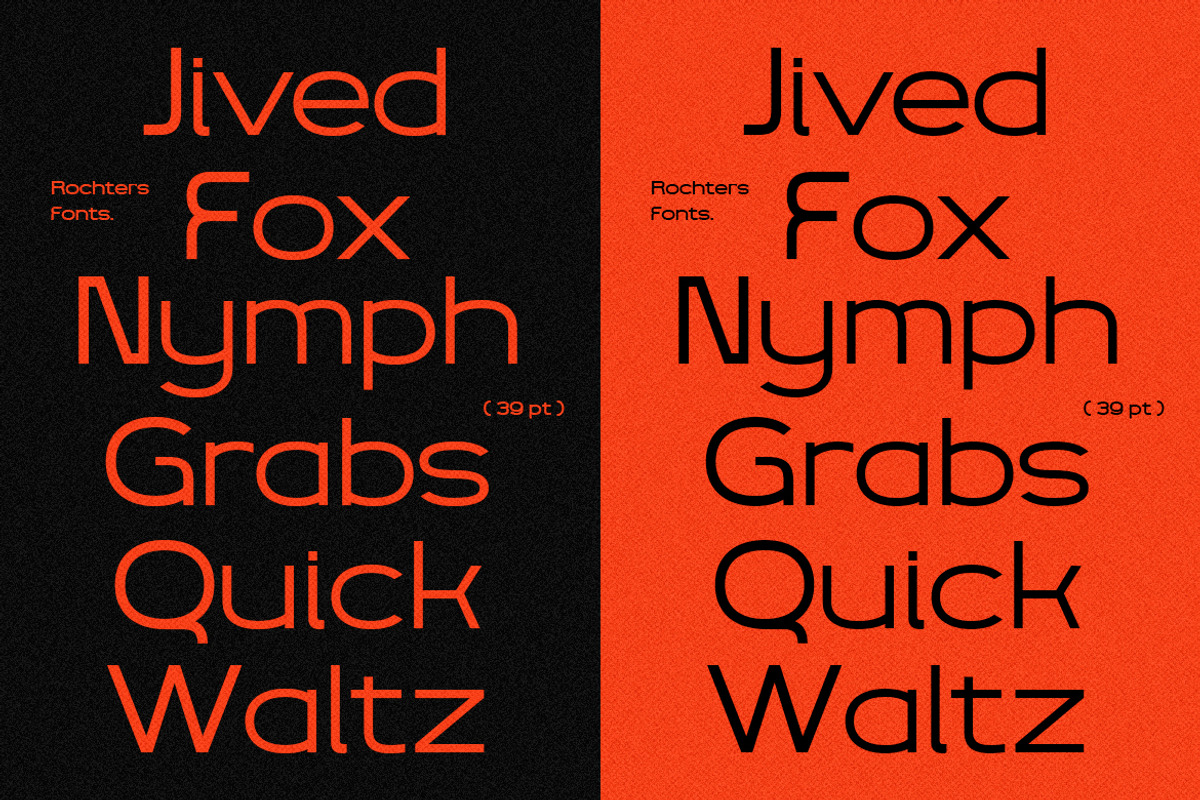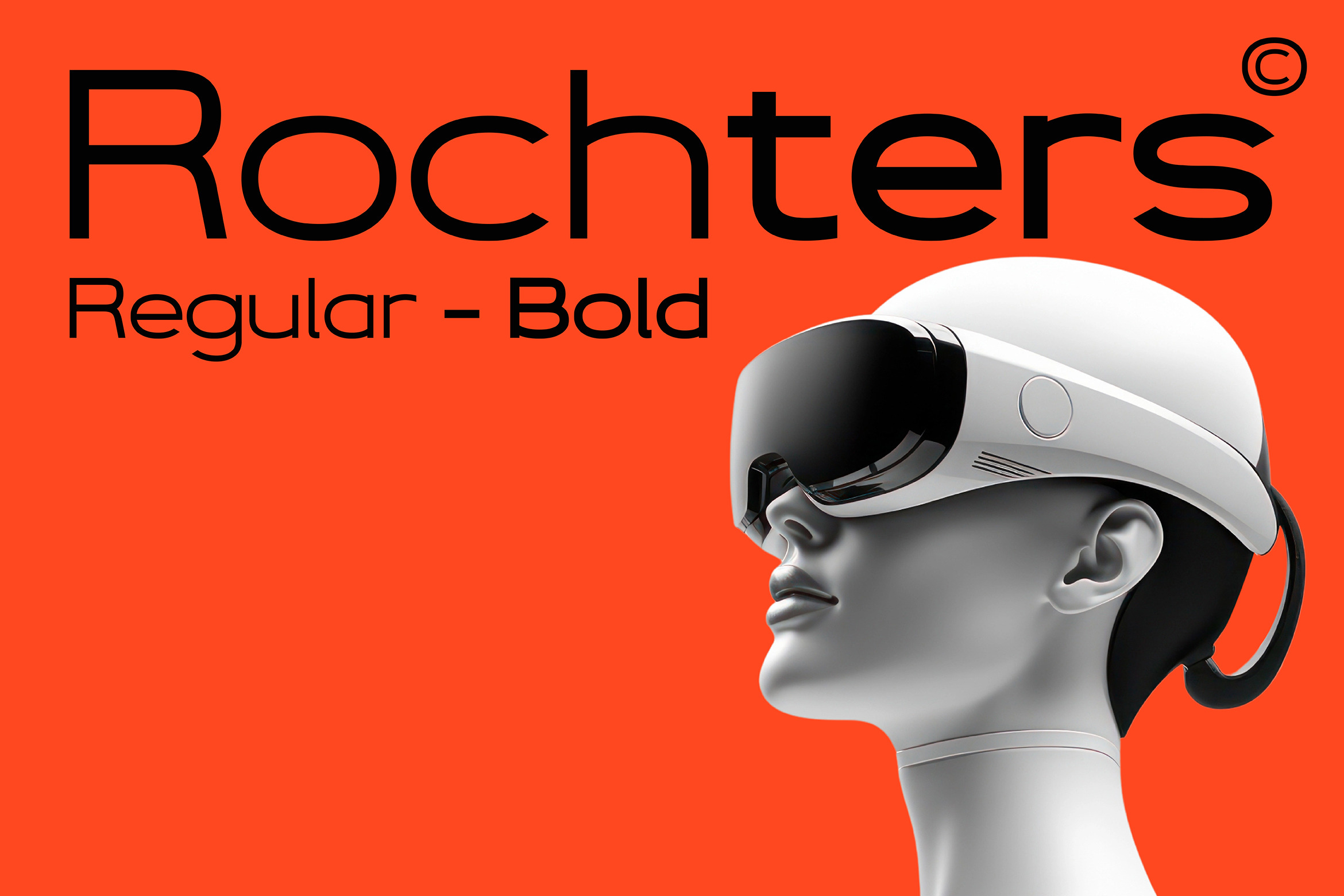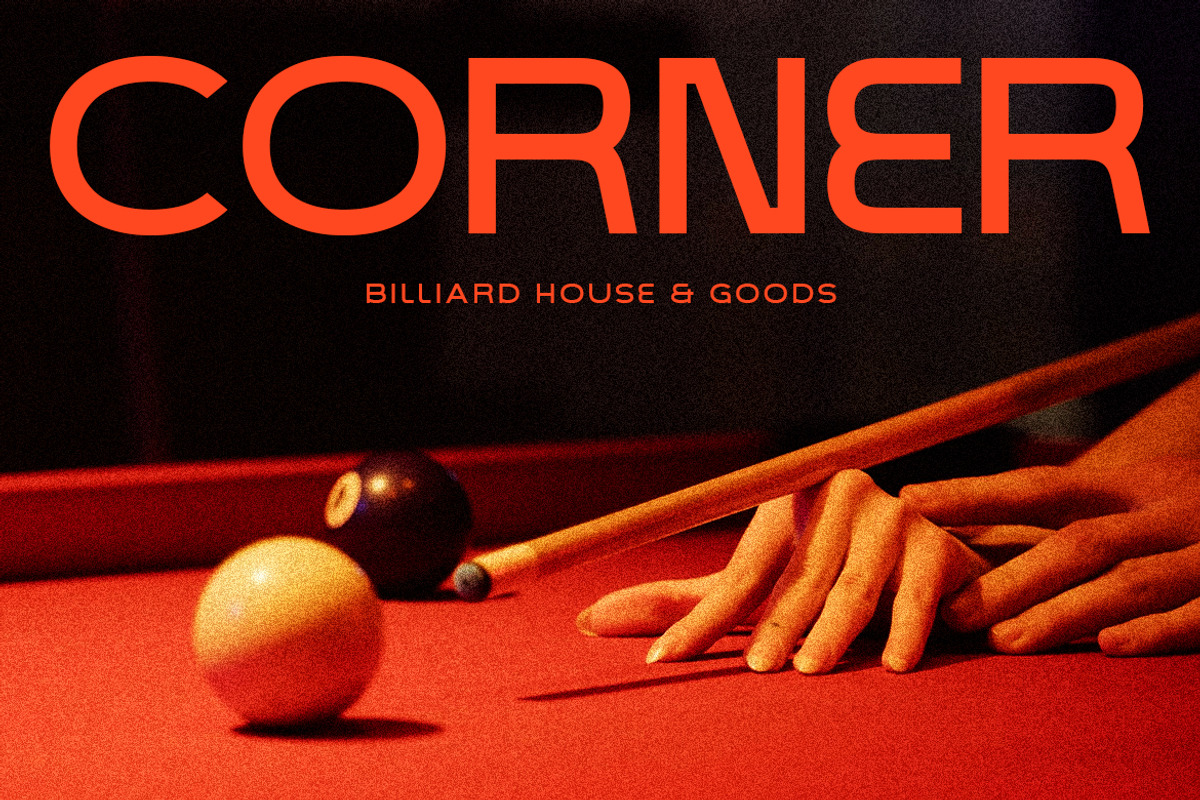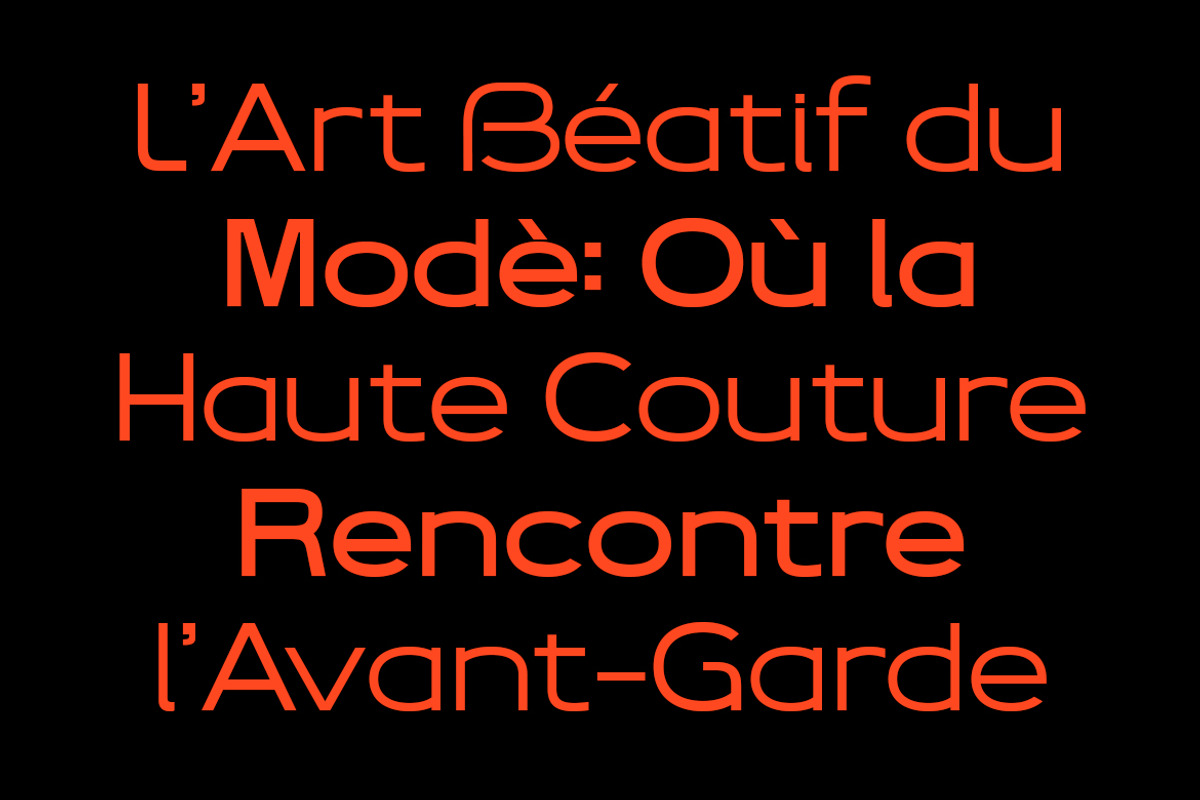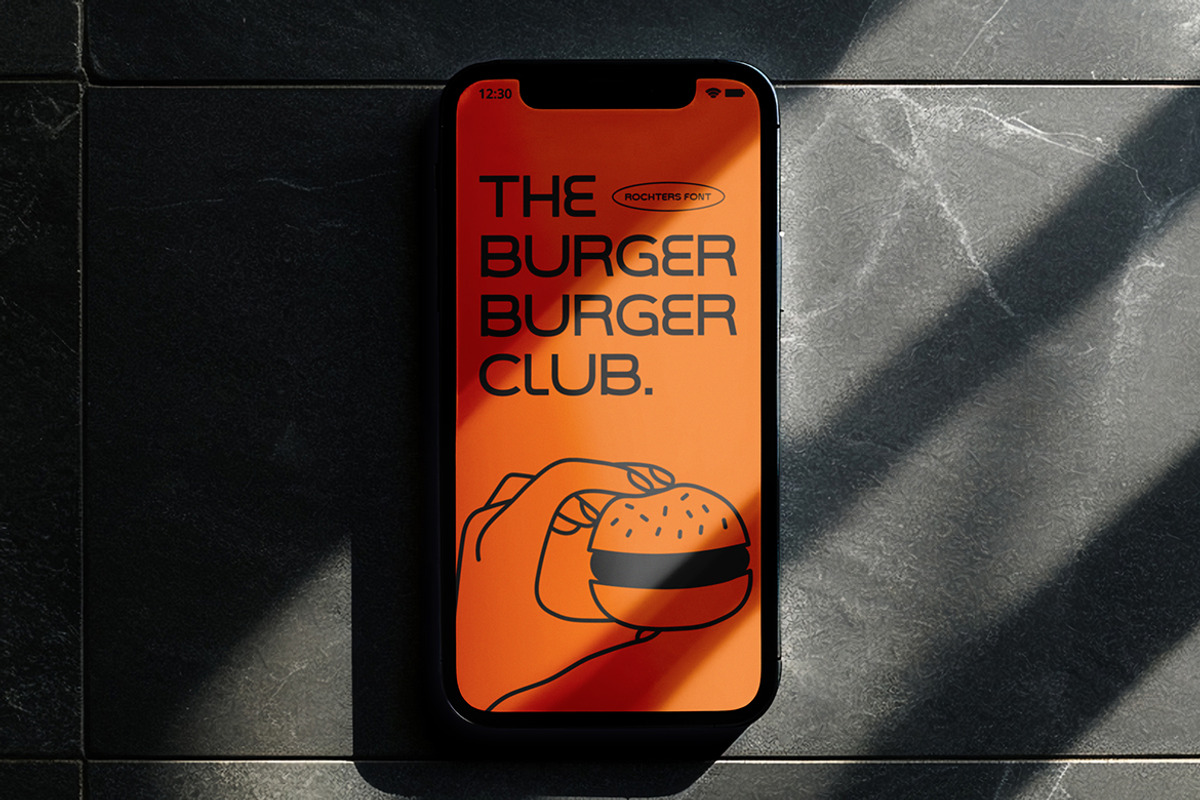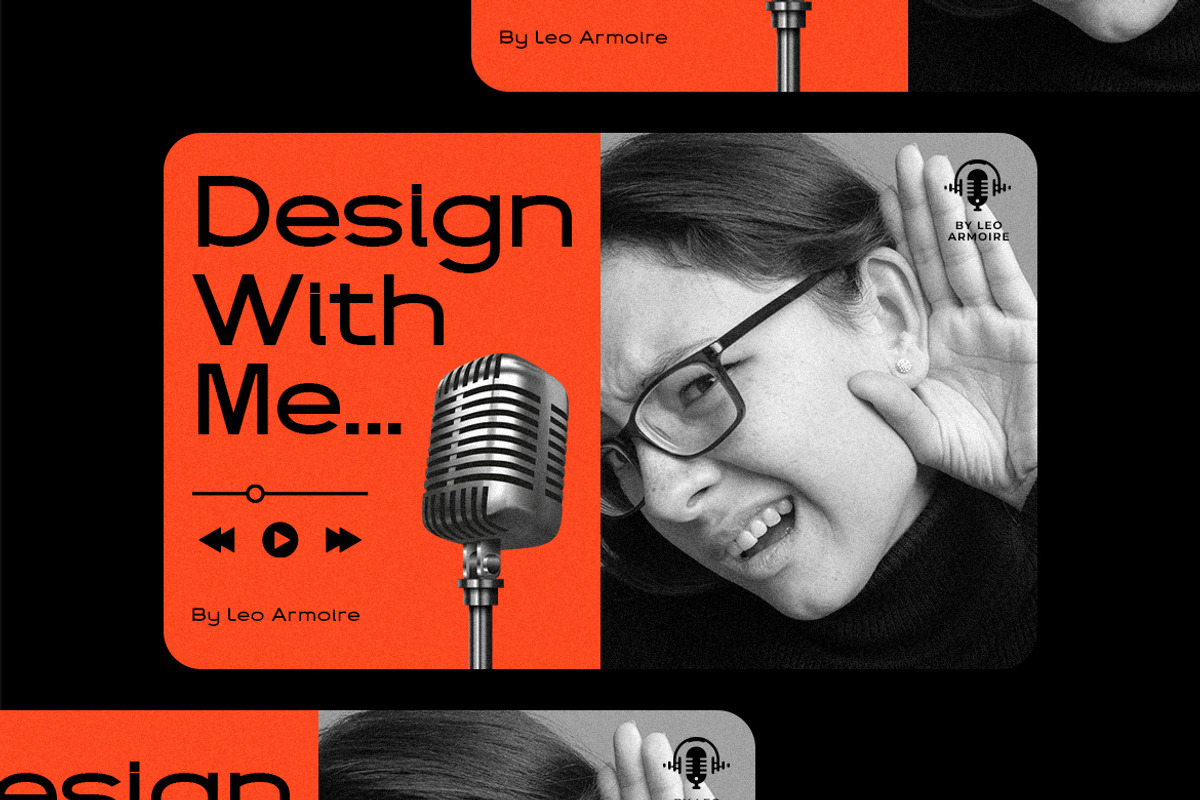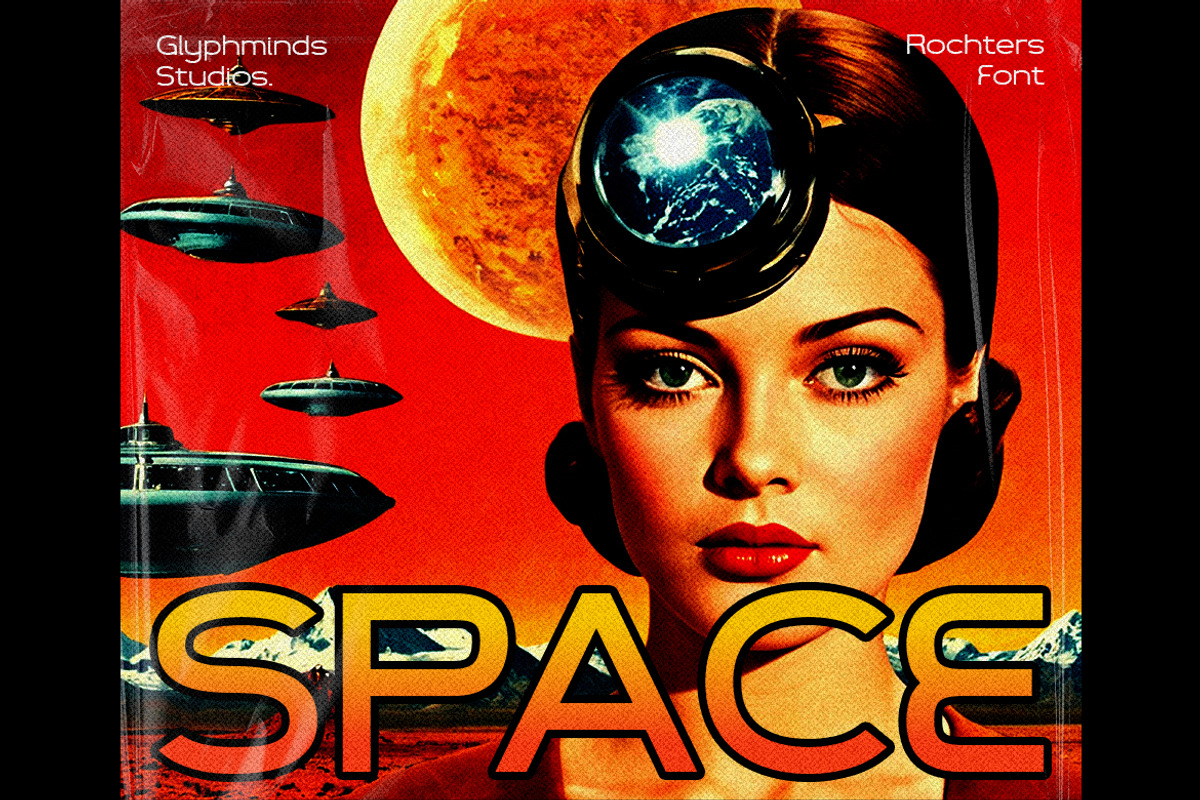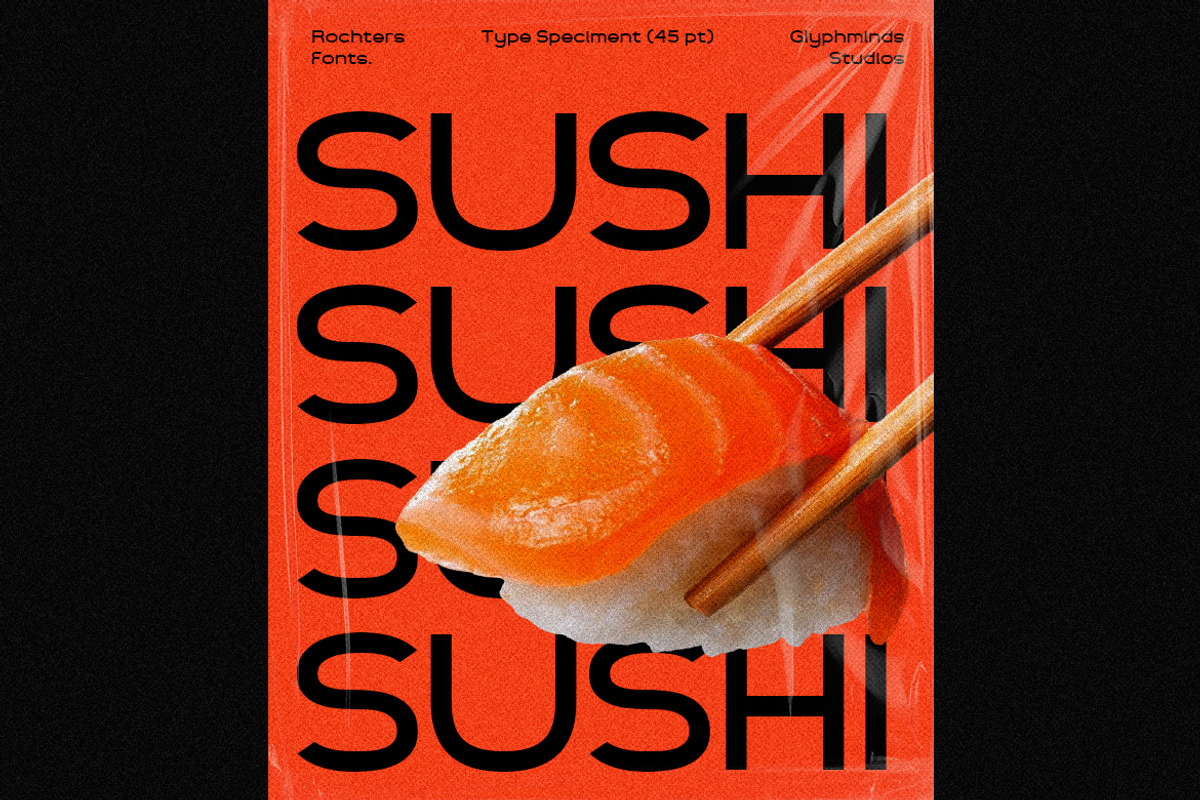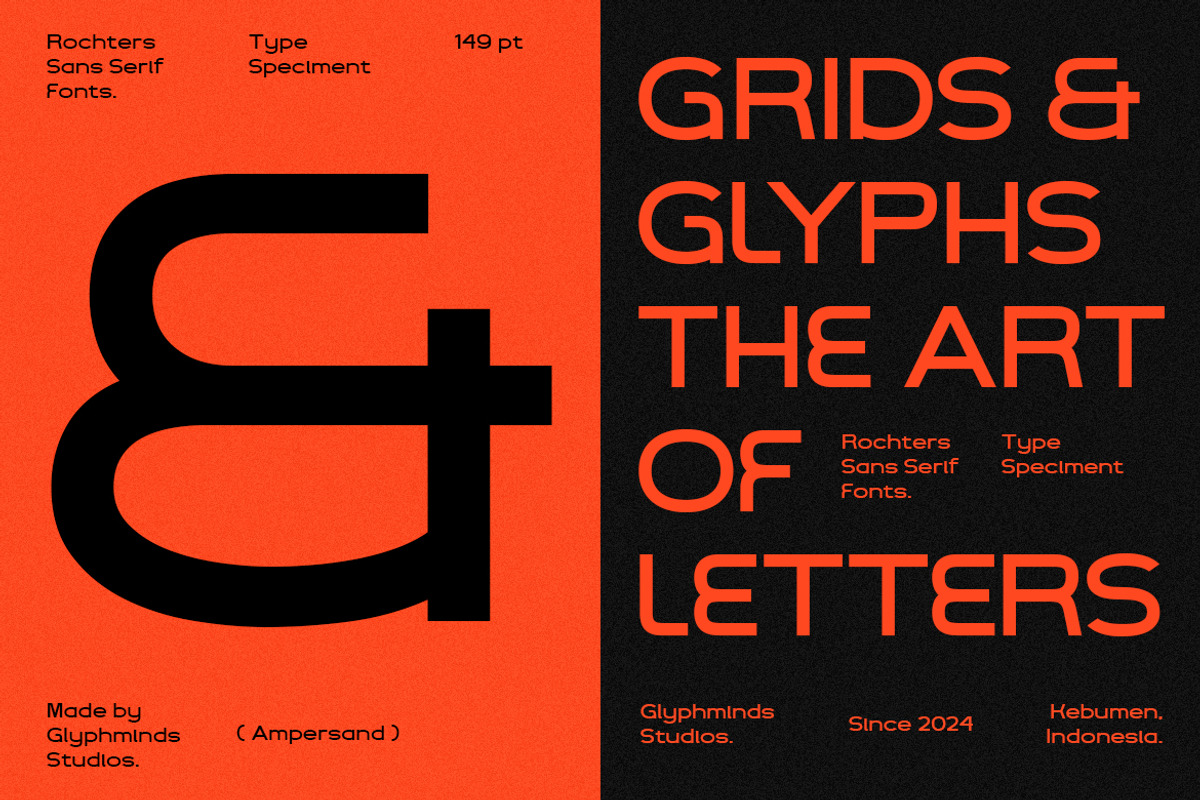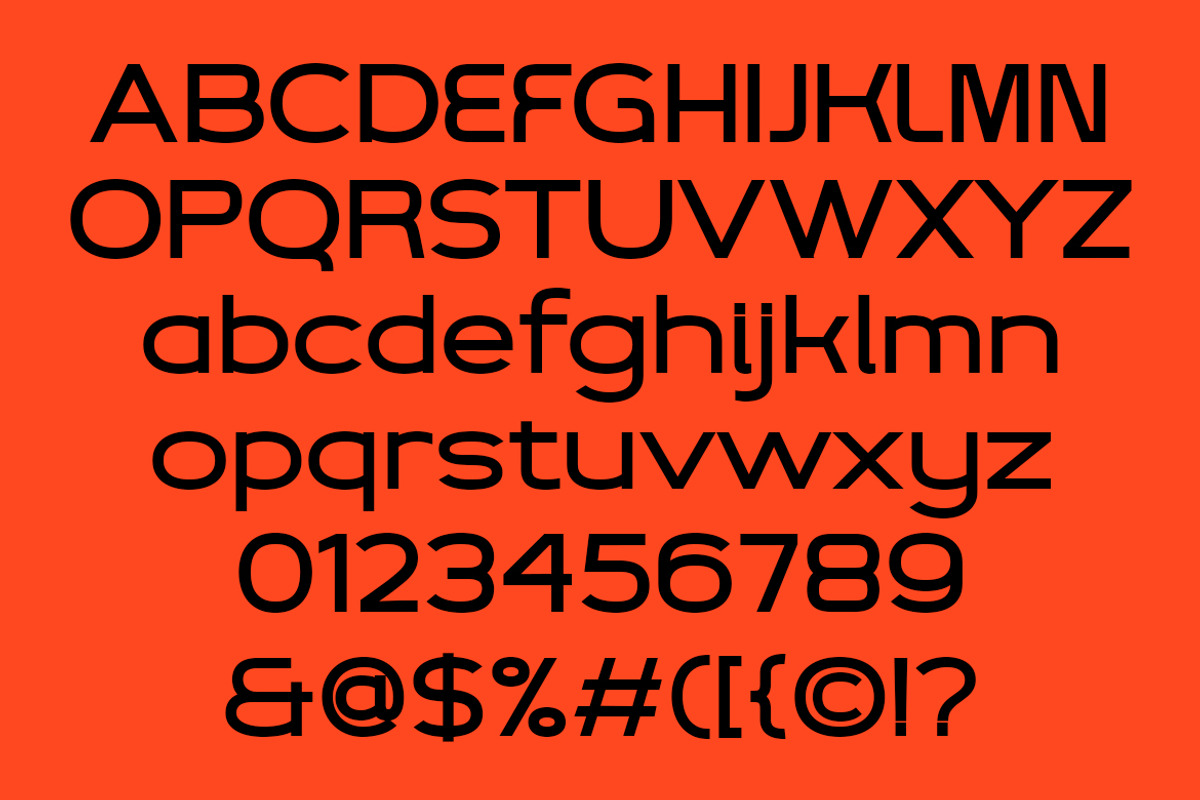
Rochters Font
Discover the sleek and modern aesthetic of the Rochters Font, a pop-inspired sans serif typeface perfect for futuristic, tech, or minimalistic designs. This font comes in two versatile styles: Regular for clean, sharp lettering and Bold for making a striking statement. Ideal for logos, branding, posters, websites, and any project needing a stylish, forward-thinking touch. Whether you're designing for the digital age or creating an eye-catching presentation, Rochters Font has you covered. Transform your designs with a font that captures the spirit of the future—clean, bold, and unforgettable!